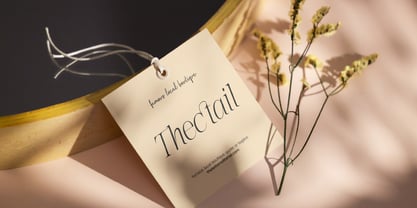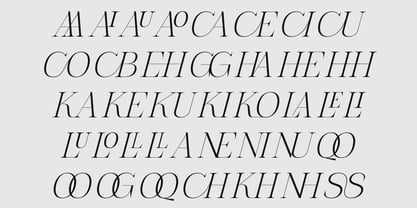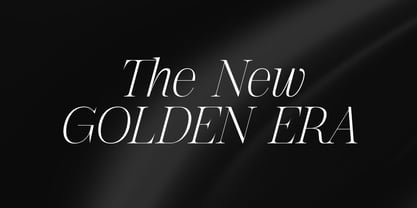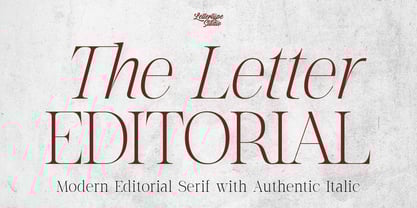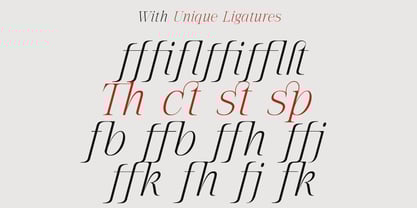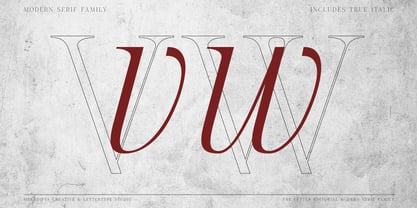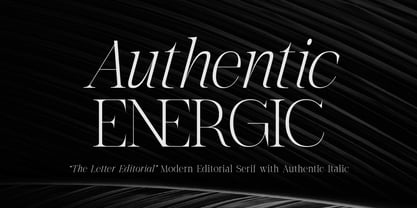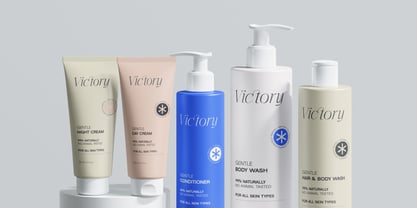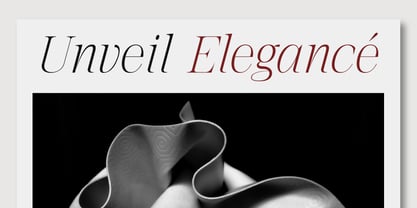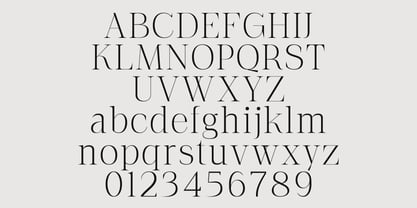
The Letter Editorial
by Lettertype Studio
The The Letter Editorial Font Family was designed by Diki Pradipta Tri Atmojo and published by Lettertype Studio. The Letter Editorial contains 2 styles and family package options. More about this family
Introducing The Letter Editorial, a sophisticated serif font that captures the essence of modern editorial elegance. With its luxurious contrast, refined proportions, and gracefully sculpted letterforms, this typeface evokes timeless charm and contemporary sophistication. Designed with a high degree of attention to detail, the regular style radiates structure and poise, making it an ideal choice for luxury branding, fashion editorials, book design, and high-end packaging.
What sets this font apart is its true italic companion—not just a slanted version, but a beautifully redrawn style with flowing strokes, elegant curves, and a dynamic rhythm that breathes life into your typography. Whether you're crafting premium headlines or elegant body text, The Letter Editorial offers both function and flair. Perfect for those who demand beauty, clarity, and character in every letter.